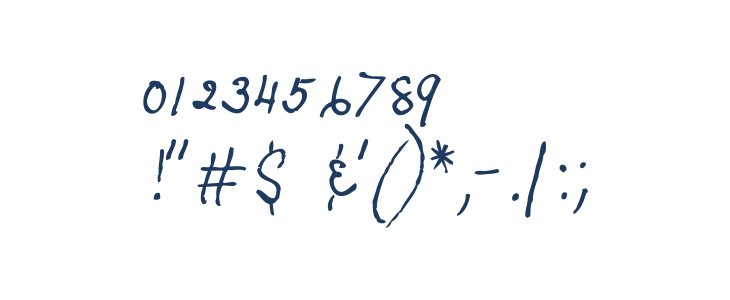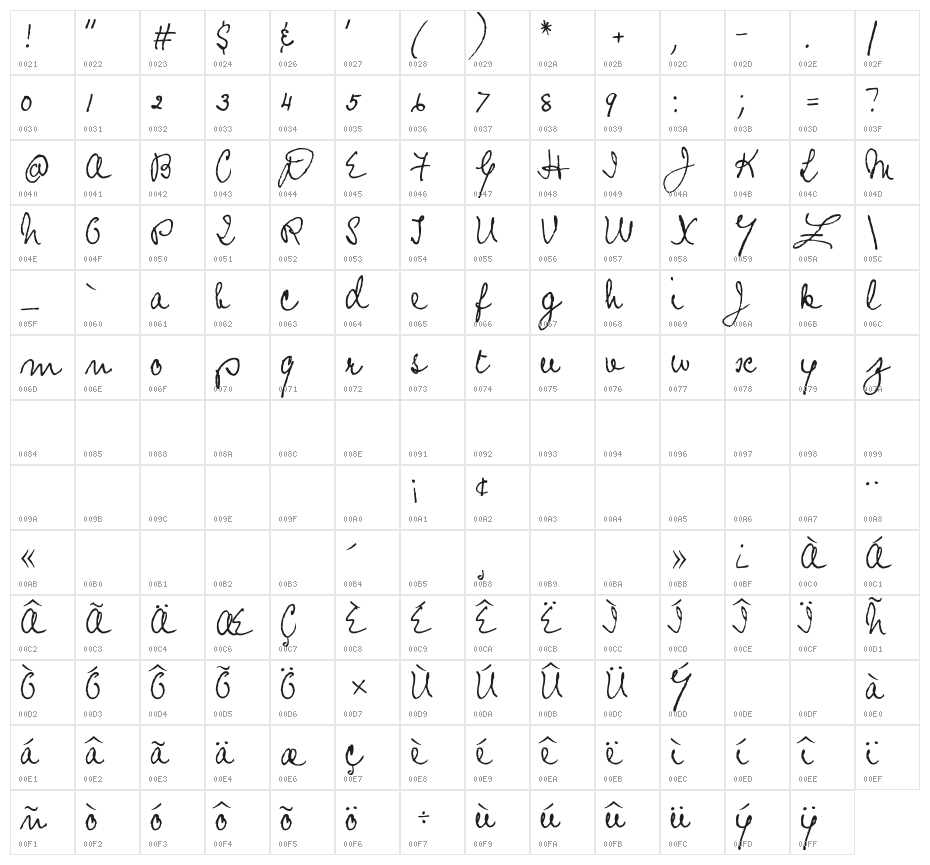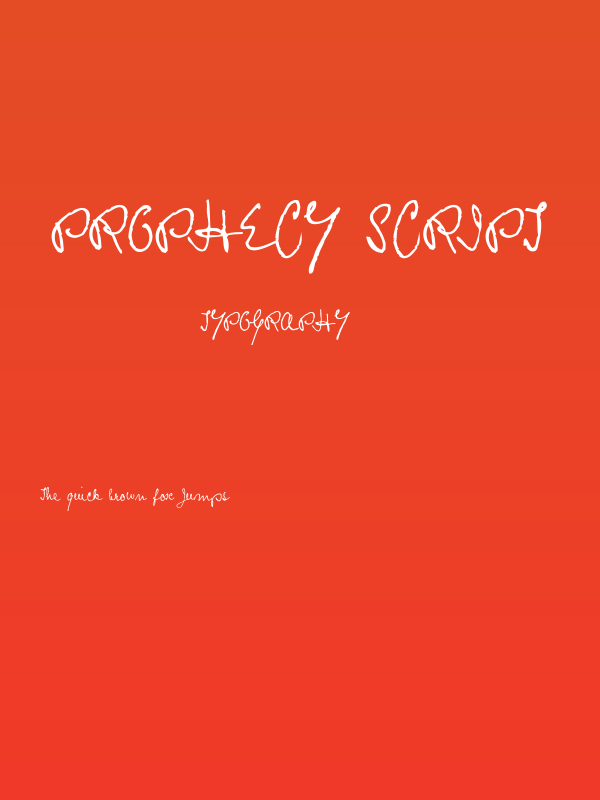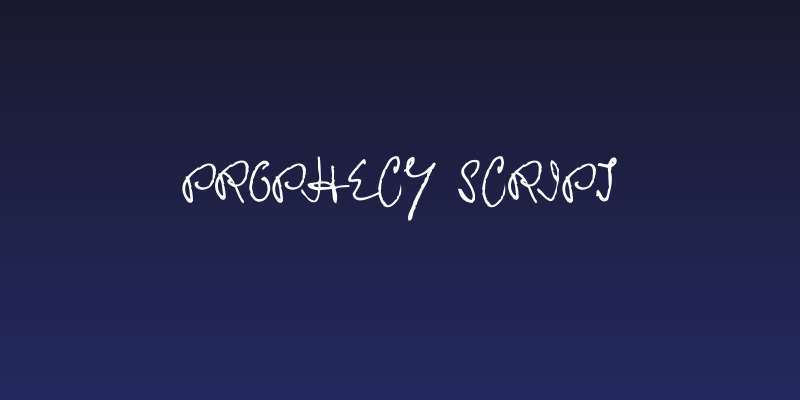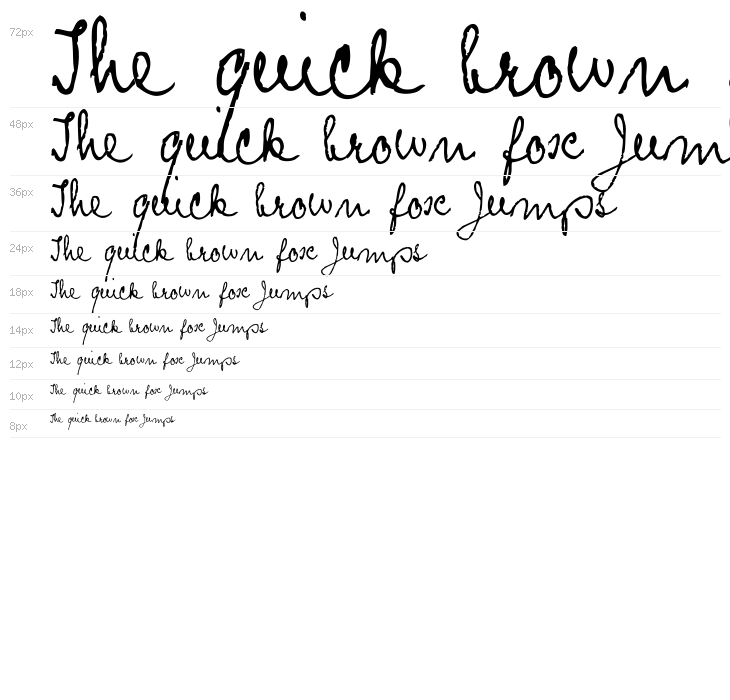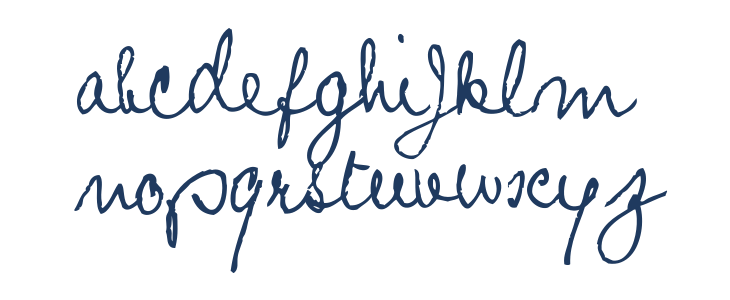
Prophecy Script Font
Prophecy Script Description
This font features a dynamic and fluid script style, characterized by its elegant and flowing letterforms. The uppercase letters exhibit a graceful, cursive design with varying stroke widths that add a sense of movement and sophistication. The lowercase letters maintain a consistent style, with smooth curves and loops that enhance the handwritten appearance. Numbers are designed to complement the script style, with a slightly playful yet refined look. Special characters are integrated seamlessly, maintaining the overall aesthetic. This font exudes a personal and artistic touch, making it ideal for projects that require a humanistic and creative feel.
| Use Case | Logos, Invitations, Artistic projects |
| Proposed Projects | Ideal for wedding invitations, greeting cards, personal branding, and artistic projects. |